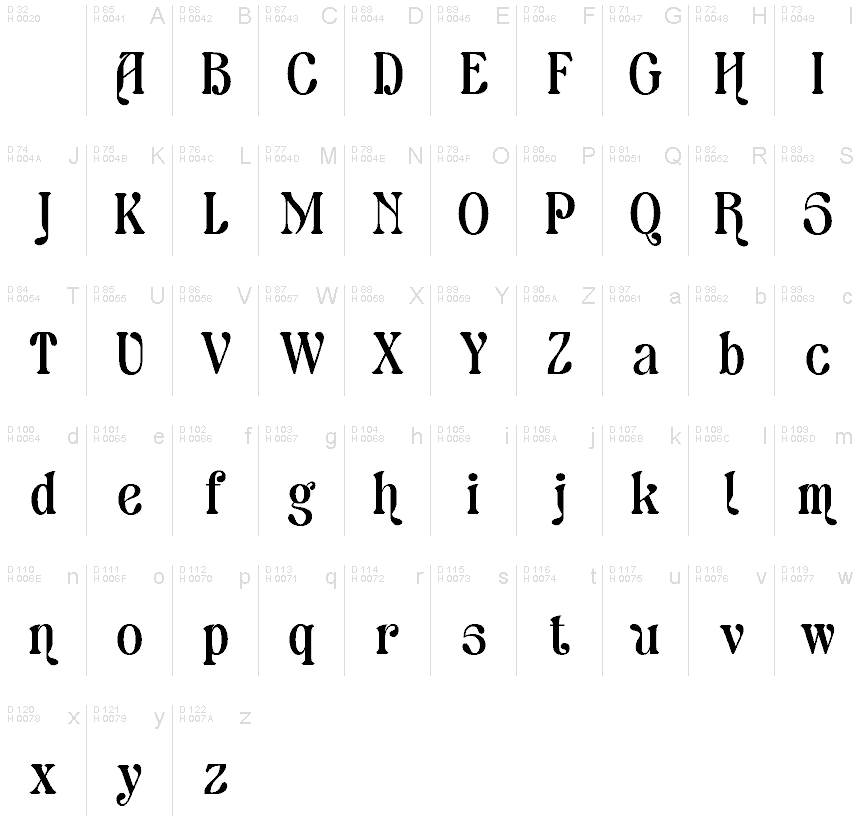
CS Rosmary Regular Demo
CS Rosmary font, designed by Craft Supply Co., is a free vintage serif font with historical undertones. It features decorative details that enhance its artistic flair and elegant touch, preserving the traditional essence for a classic yet stylish look fit for today. Vintage-inspired, CS Rosmary brings about the graceful shapes necessary to deliver all sorts of impressive visual results.
CS Rosmary’s aesthetic lends itself beautifully to business branding concerned with fashion, cosmetics, or photography; any invitation card, greeting card or wedding engagement announcement; magazine covers, body text in books or brochures; posters and flyers related to music bands; restaurant menus and many others.